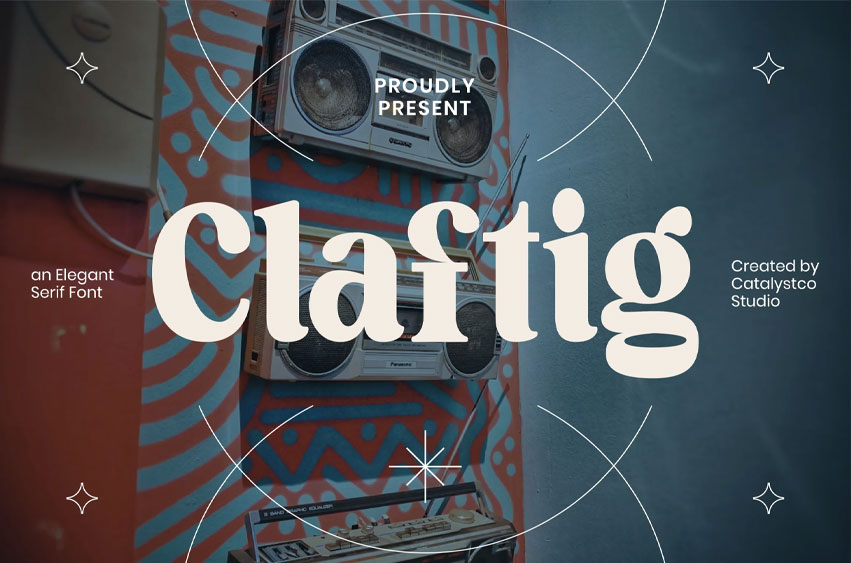
Claftig Font Elegant Serif Font typeface excellent for manufacturing quote texts, logotypes, header magazines, and many more.
- Uppercase & Lowercase
- Ligatures & Alternate
- Numeral & Punctuations
- Multilingual Support